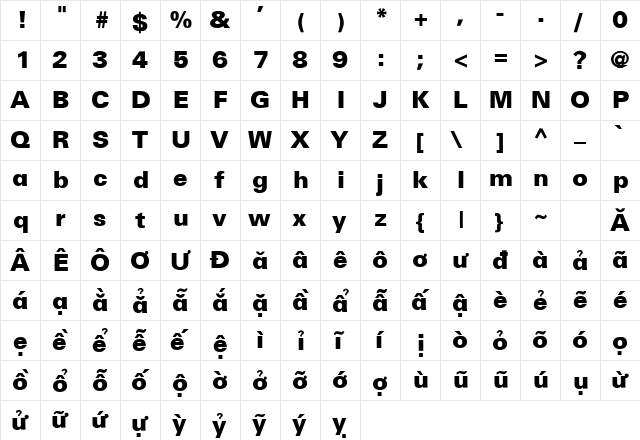
.VnBlack Regular
Design Context for .VnBlack Typeface
.VnBlack takes a measured approach to typography — its balanced proportions and neutral character make it a reliable workhorse for both digital and print work.